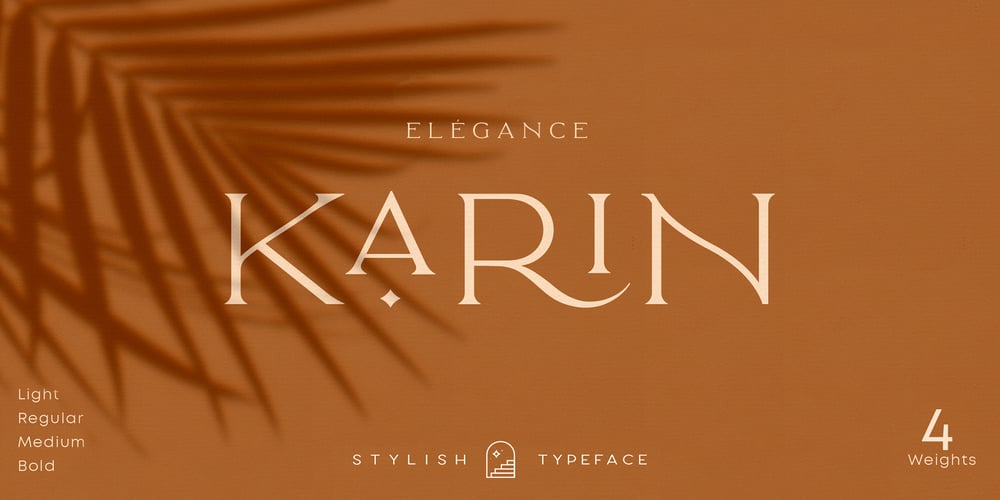
Elegance Karin Font Family was designed by Kurt Harahap and published by Kaligra.co. Elegance Karin contains 4 styles and family package options. Karin is a Minimalist Modern Elegant vintage font with beautiful ligatures, tons of special alternative glyphs, ornament and multilingual support. It’s a very versatile font that works great in large and small sizes. Elegant Karin is perfect for branding projects, Logo design, Clothing Branding, product packaging, magazine headers, or simply as a stylish text overlay to any background image.